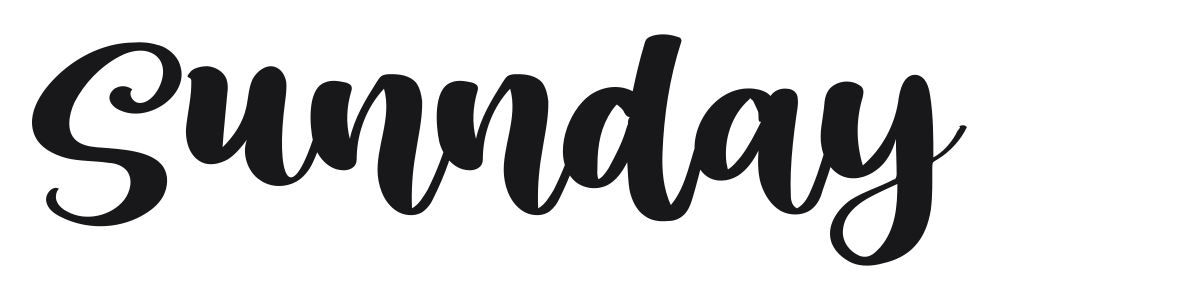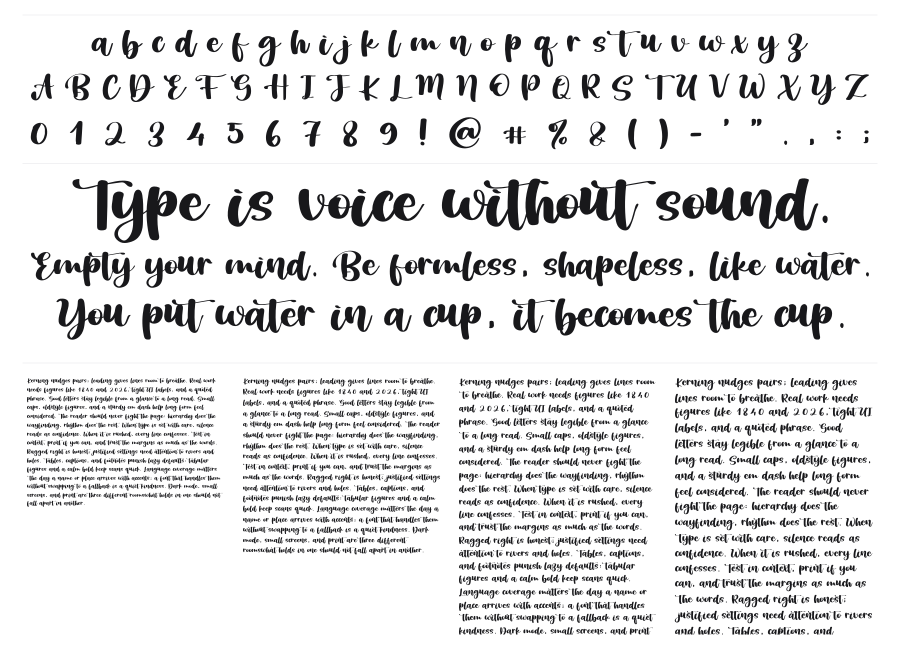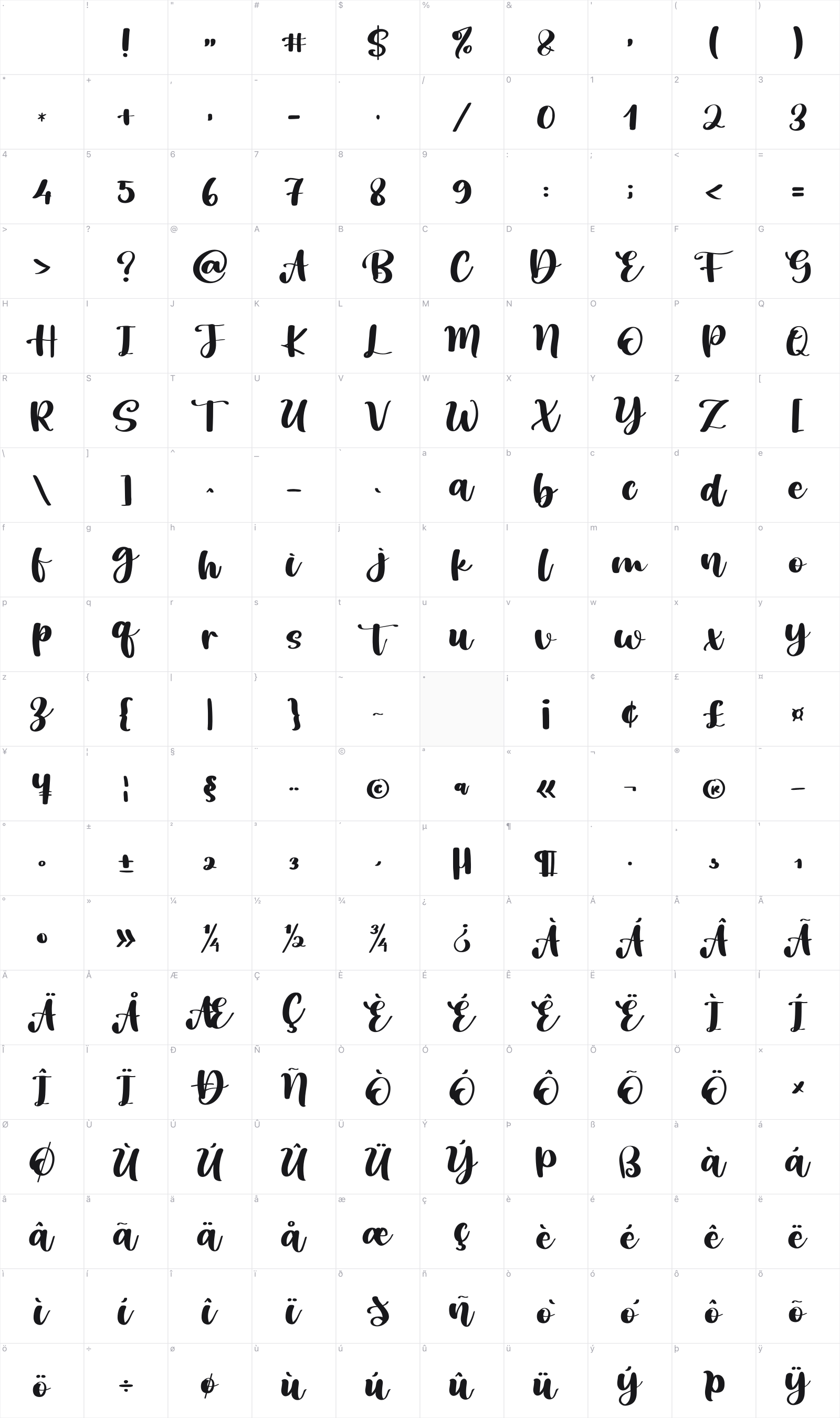
Sunnday
Sunnday is a bold casual script with a lively bounce and strong thick-to-thin stroke contrast that mimics confident brush lettering. The looping ascenders, fluid connections, and swashy details give it a handcrafted warmth without feeling precious. It works well anywhere you need personality at large sizes: packaging, logos, social graphics, or event branding.